So that's it: we're almost done with 2025. But before we ring in Q2 of the 21st century, there's the small matter of this month's type releases, ready to help you reinvigorate your graphic and web designs throughout 2026 and beyond.
A compelling theme emerges across several releases: the reconciliation of opposing forces. Whether balancing ornament with systematic constraint, softness with precision or theatrical presence with quiet functionality, December's typefaces demonstrate how productive tension between extremes can yield unexpectedly versatile results.
Whether you're seeking a display face that bridges centuries of typographic evolution, a rounded sans with genuine warmth, or a versatile Didot that adapts from caption sizes to poster-scale drama, you're sure to find something here to pique your interest.
1. GS Lomba by Gerard Sierra
Designed by Gerard Sierra of GS Type, GS Lomba presents a compelling intersection of medieval ornament and digital discipline. This experimental display typeface merges the ceremonial richness of Lombardic letterforms with the mechanical logic of monospaced design, creating something that feels simultaneously ancient and synthetic.
Here, every character seems to exist as a deliberate contradiction; ornate yet rigidly fixed in width, expressive yet mechanically constrained. Yet rather than compromising between these opposing forces, GS Lomba embraces both fully.
The result isn't mere decoration, but what Sierra describes as "a coded ritual": historical gesture reframed through contemporary digital precision. GS Lomba looks backwards whilst speaking an unmistakably modern language, demonstrating how constraint can amplify rather than diminish expressive potential.
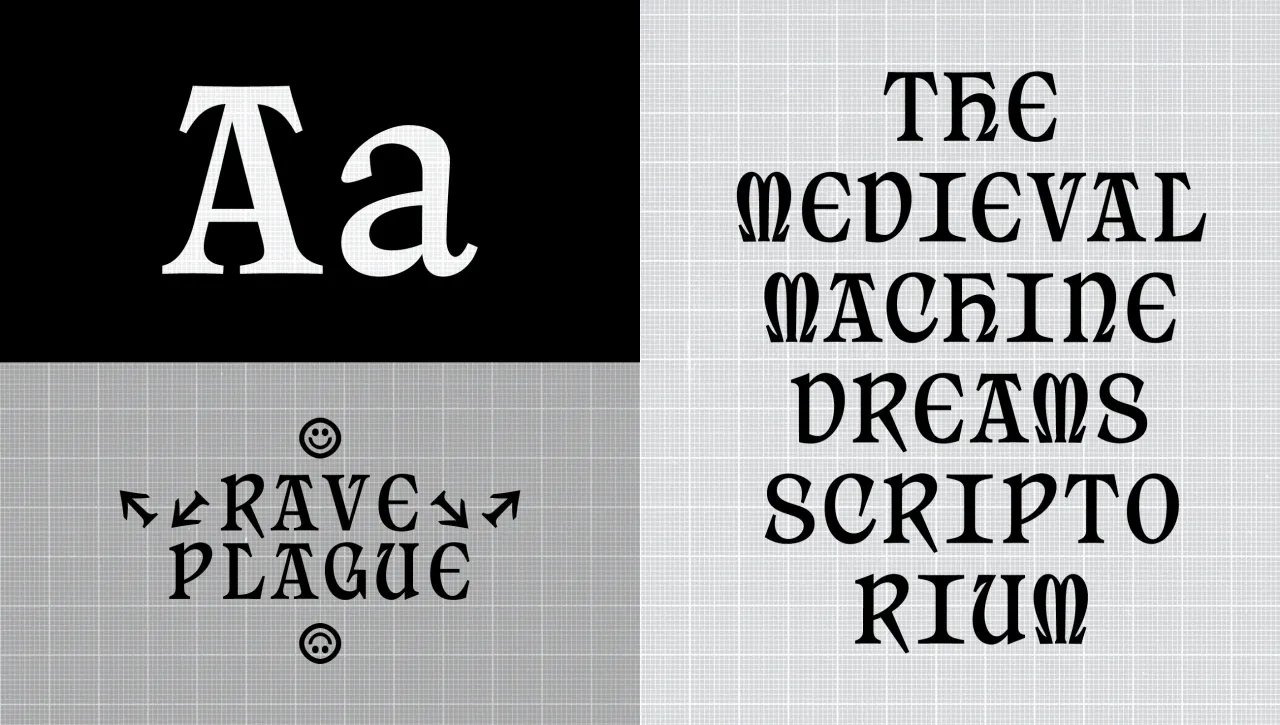
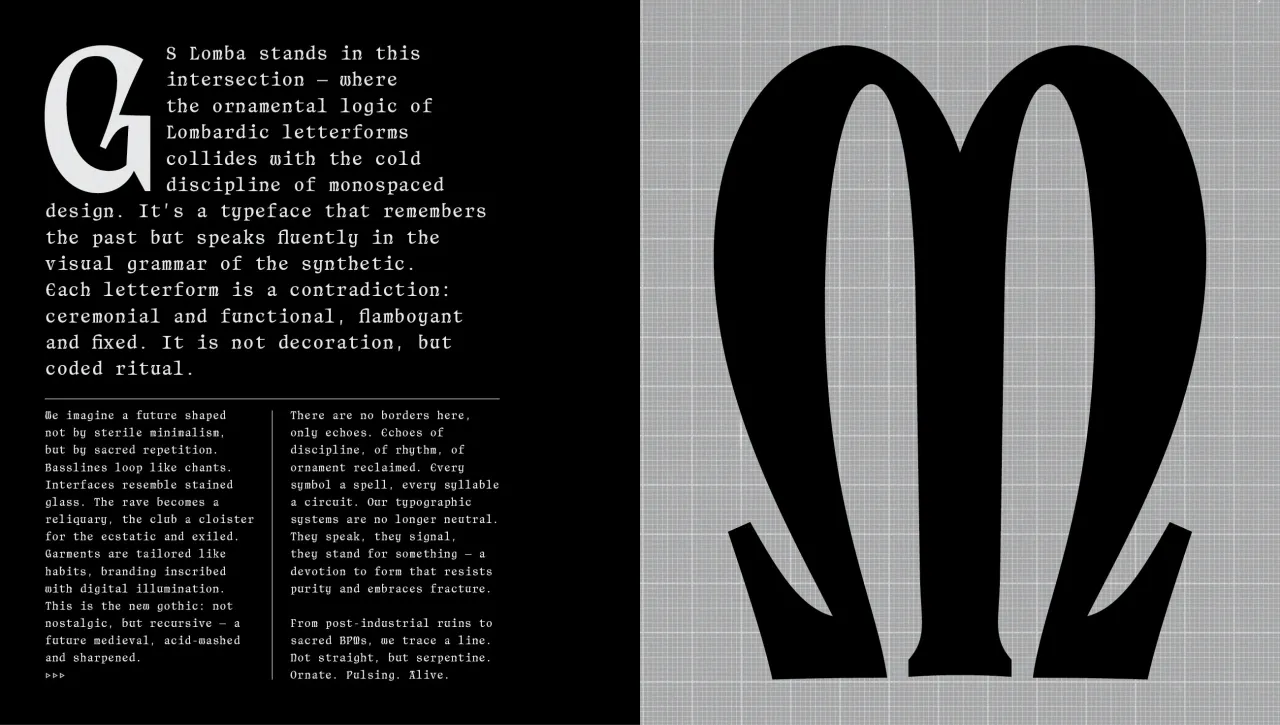
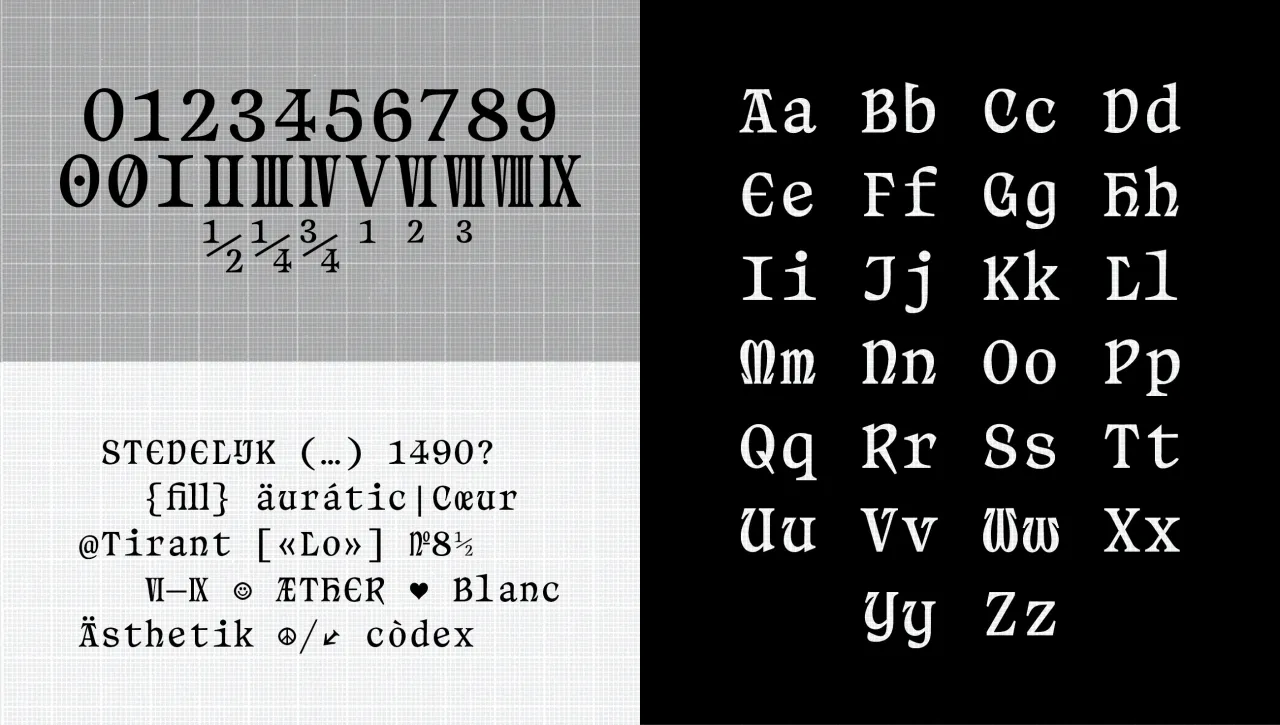
2. Snowee by Hieu Le
Designed by Hieu Le for Vietnamese font foundry Chợ Chời Creative, Snowee emerged from a brand refresh for Snowee Gelato, a gelato company with over 20 years of history. The typeface translates the sensory pleasure of the foodstuff into typographic form, creating a display face that prioritises approachability and (ironically) warmth.
Snowee's character is derived from soft, elliptical geometry inspired by gelato scoops, combined with a calligraphic flow that adds authenticity and an organic feel. The heavy weight and rounded terminals create generous, friendly forms, whilst low-contrast strokes maintain structural balance and readability at large scales.
This unusual approach yields a typeface that feels simultaneously substantial and inviting. It would be a practical choice for headlines, packaging, and brand identities, particularly those that require a distinct, non-corporate personality that balances sweetness with genuine presence.
3. Gando by Matthieu Cortat
Matthieu Cortat's Gando addresses a persistent challenge with Didot typefaces: their distinctive personality, whilst compelling at display sizes, can compromise readability in running text. Rather than choosing between charisma and functionality, Gando provides both... through variable font technology that spans the full spectrum between extremes.
His design draws from an 1828 specimen from the Gando brothers' Parisian foundry, which featured Didot-style designs cleverly adapted for small sizes, including alternative forms for certain letters with distinctly Modernist characteristics. Matthew explored this historical corpus freely, developing four optical sizes that consistently modulate typographic voice: Caption (reinforced x-height, optimised spacing), Text (softened edges), Display (whole Didot aesthetic), and Poster (expressive curves at peak intensity).
Each optical size includes italics and weights ranging from Regular to Bold, creating a comprehensive system that spans theatrical prominence to supporting functionality. It's a great example of how variable font technology can enable contextual adaptation, allowing a single typeface to perform multiple roles—from flamboyant diva to reliable extra—whilst maintaining coherent family relationships.
4. Futurist by Fuego Fonts
Launching alongside Fuego Fonts' new Berlin-based foundry, Futurist positions itself as a contemporary sans serif that balances engineered precision with human warmth. The typeface's construction combines soft curves with geometric exactness, creating a rhythm that feels simultaneously fluid and controlled.
Available in three widths and five weights (Light to Bold), its refined geometry and considered details enable seamless adaptation, from headlines to interface applications. It's a strong demonstration of how contemporary sans serif design can achieve both systematic consistency and expressive character without sacrificing either quality.
Futurist represents the foundry's philosophy of combining branding expertise with typographic craft, creating fonts that offer immediate usability for modern brands. The typeface succeeds as a forward-looking voice for contexts where design and innovation intersect, providing versatility without neutrality, precision without coldness.
Built as part of the wider D0UBLE ZER0 typographic system, 00 Quatorze is designed to connect rather than exist in isolation. With 48 styles plus a variable model that unlocks the full hypercube, it offers both structure and freedom. It is a system-first typeface that rewards experimentation while staying grounded in function. Modern, versatile, and made to work very hard.